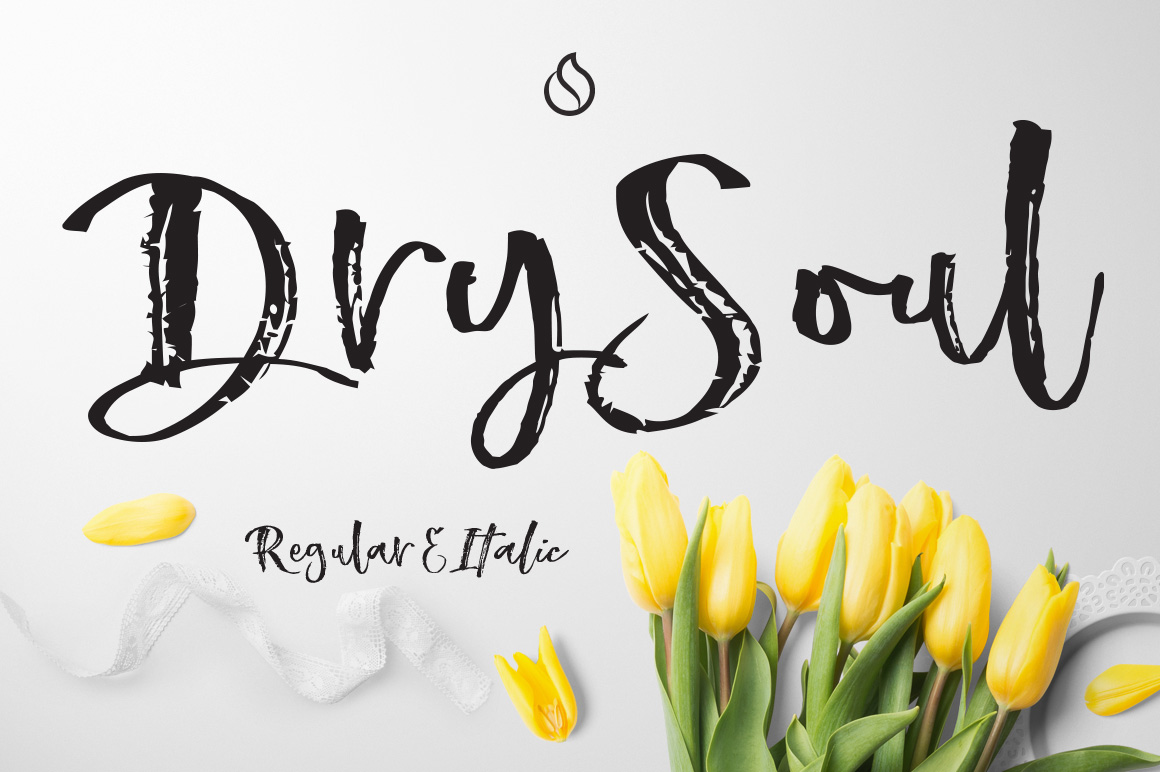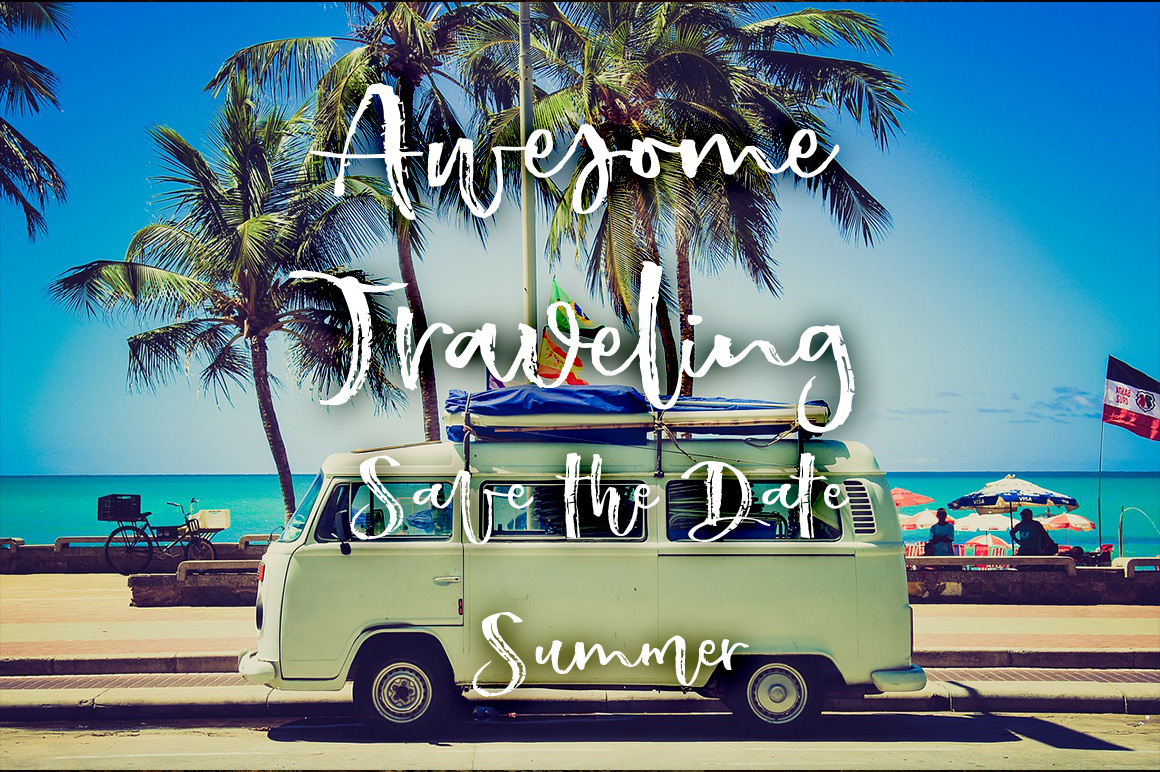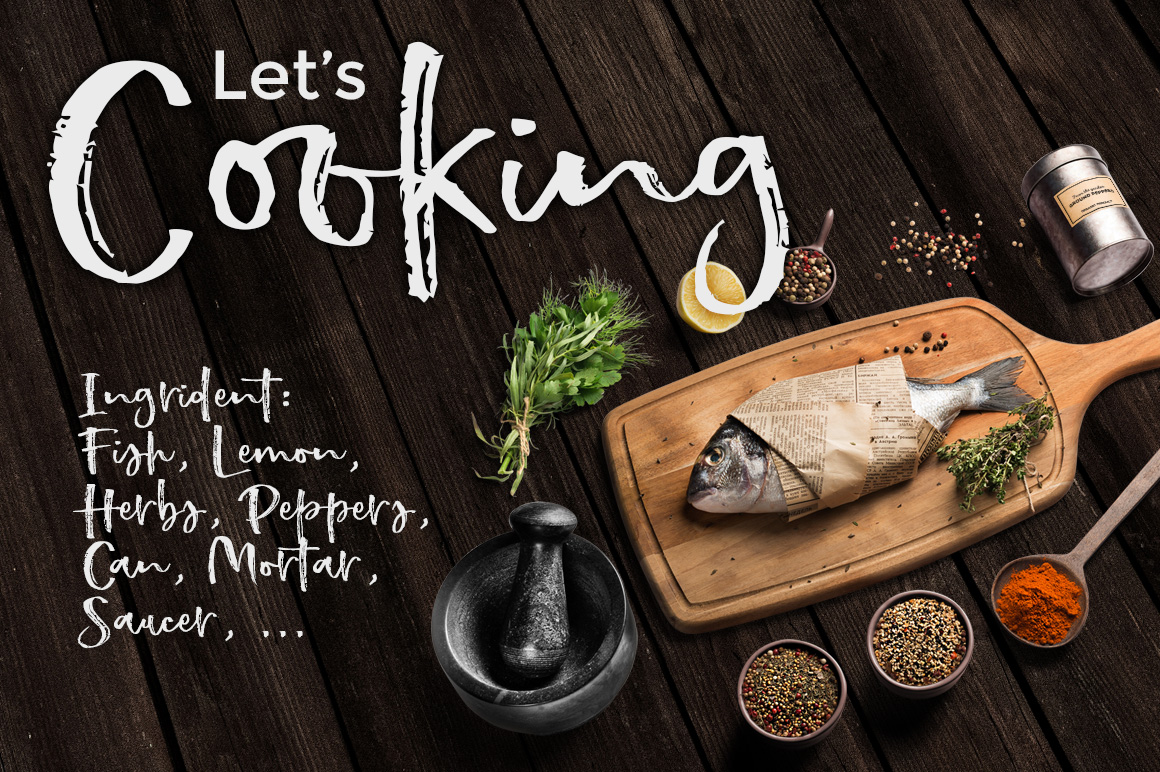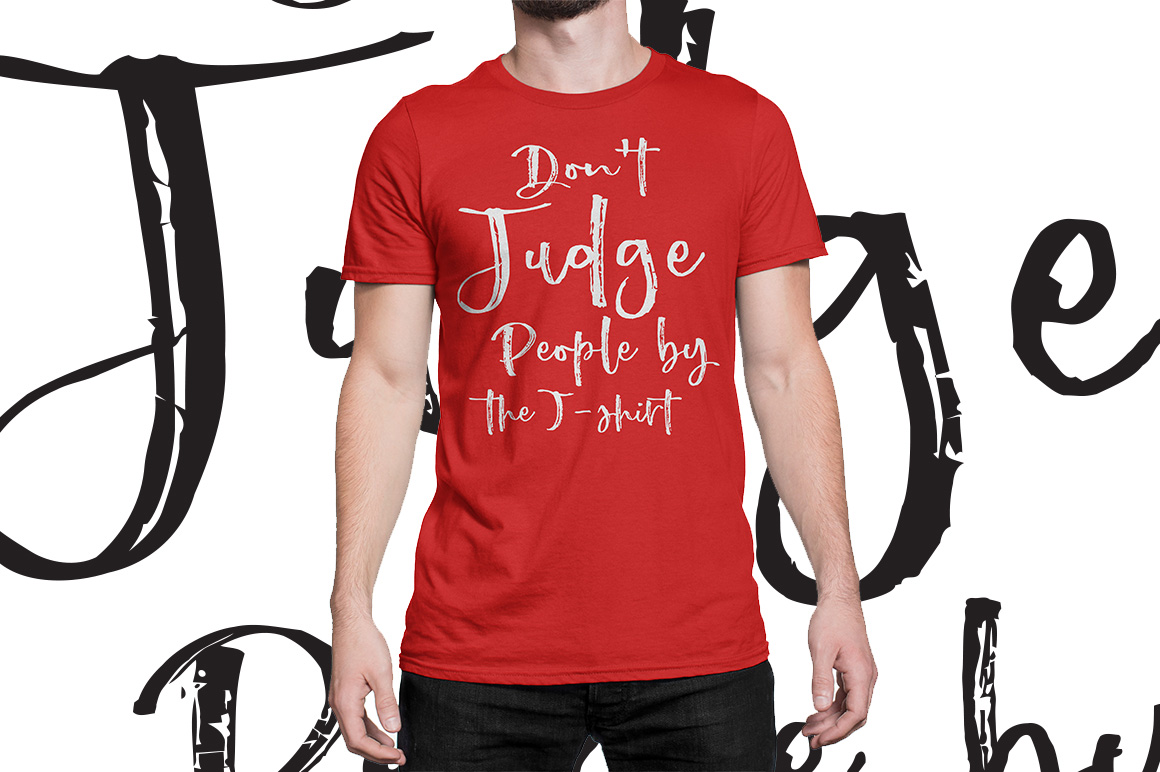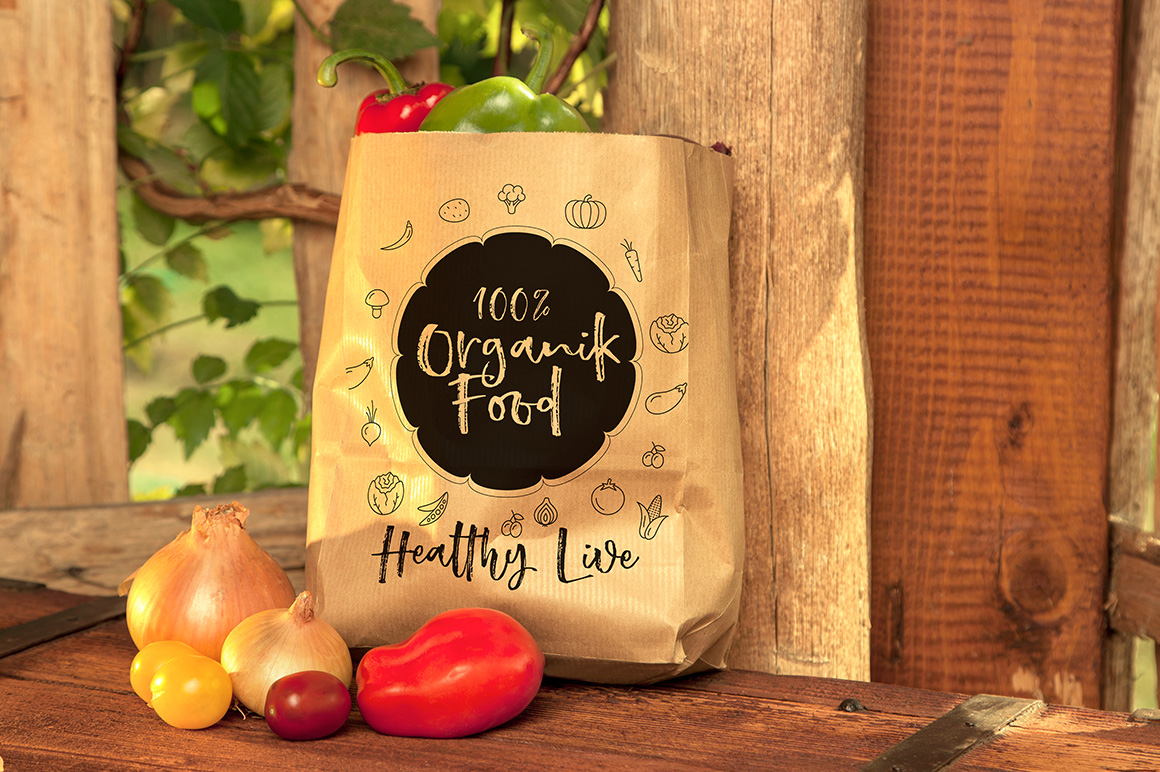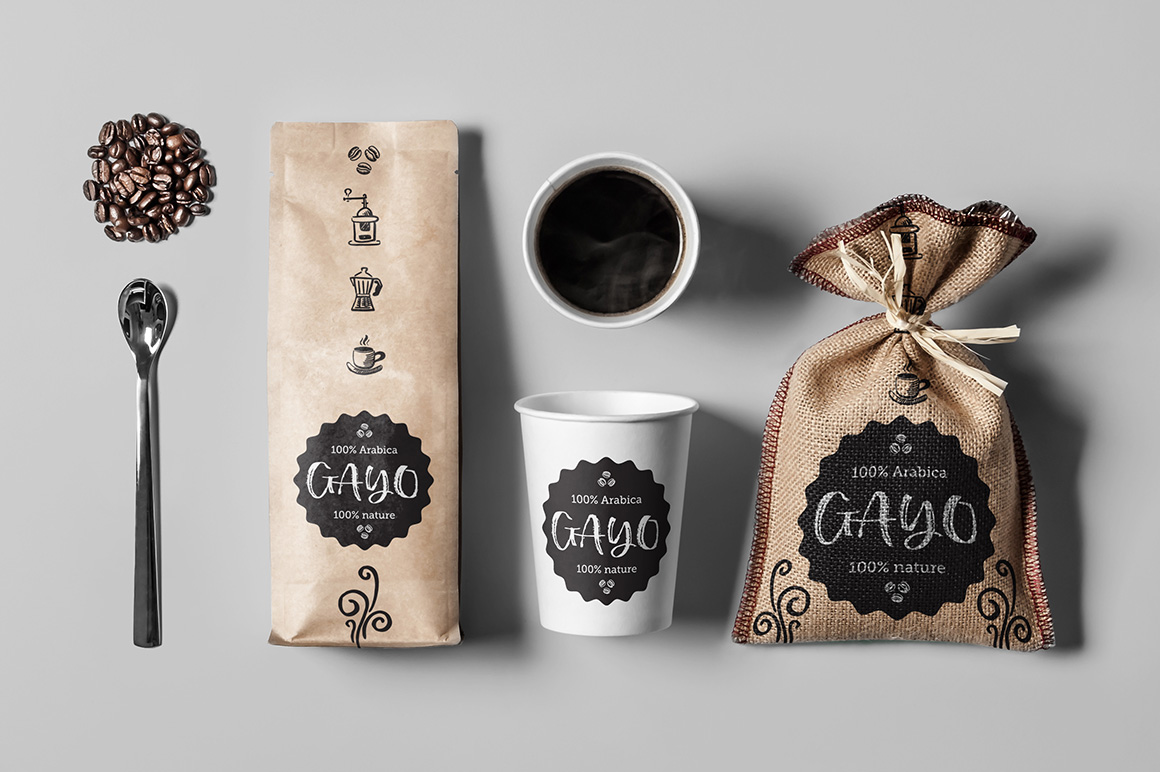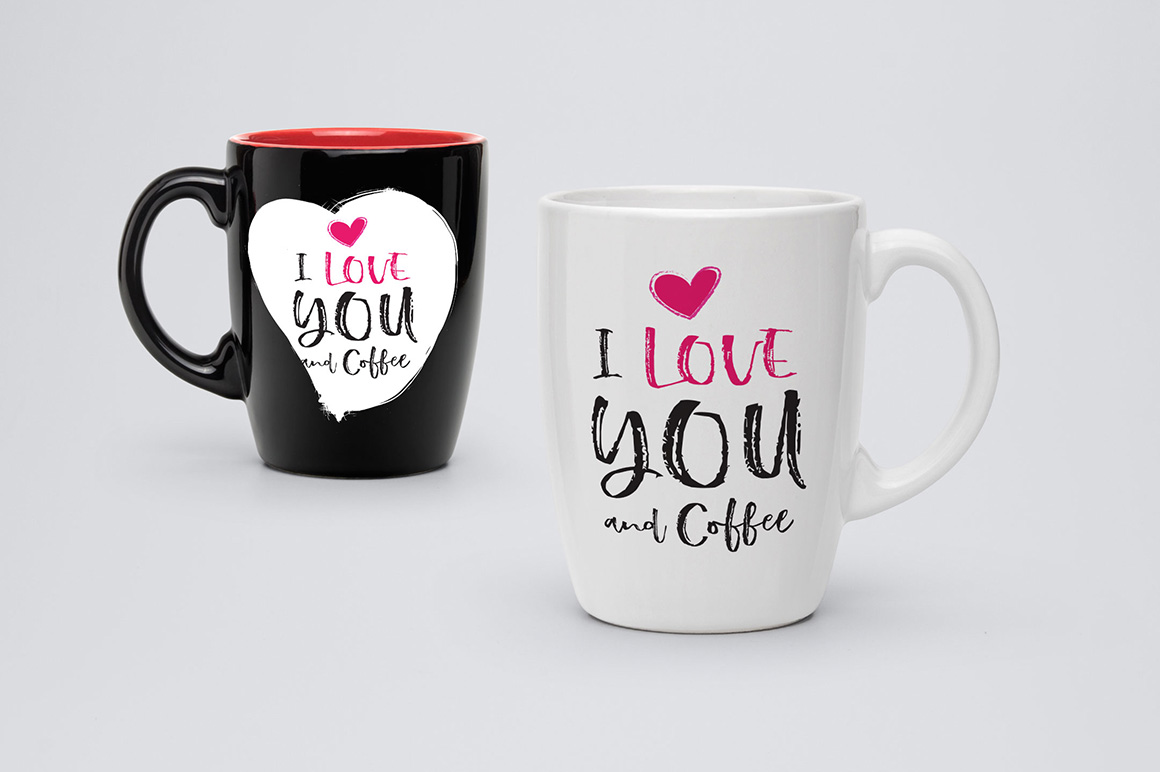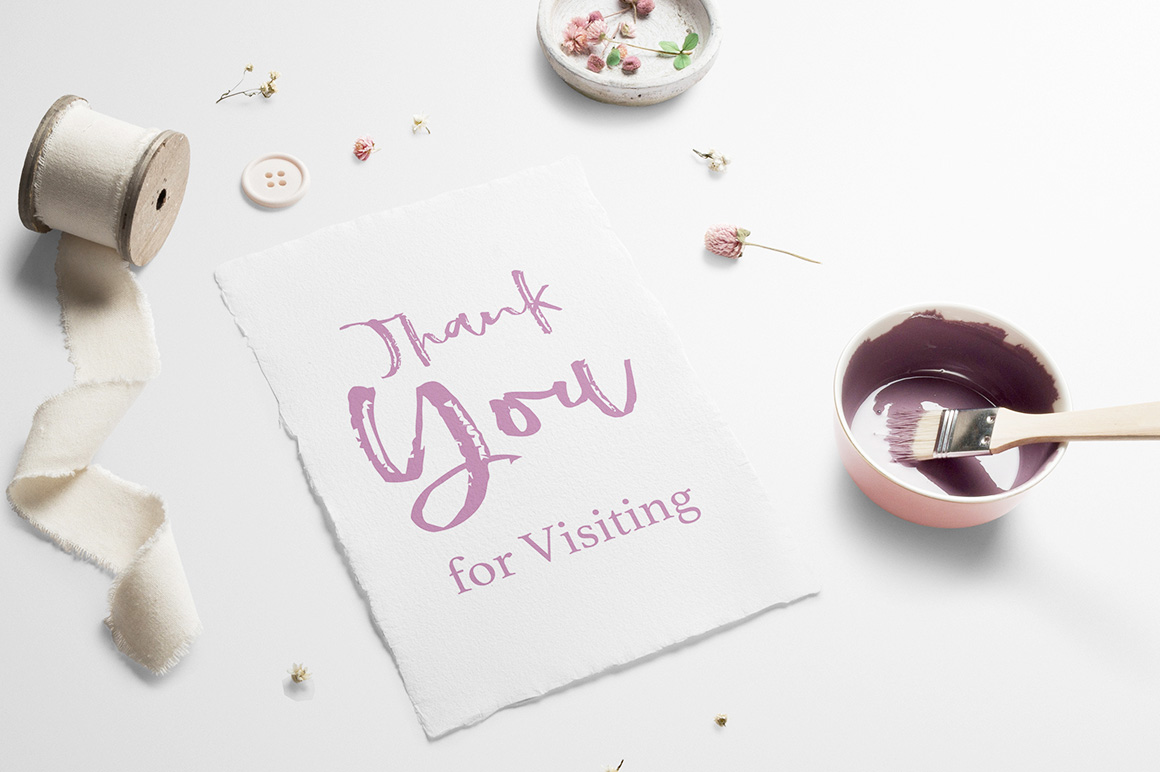
Dry Soul Font
Dry Soul is a brush based typeface with a grungy soul.
It works well in projects that require a personal touch but need a bit of boldness.